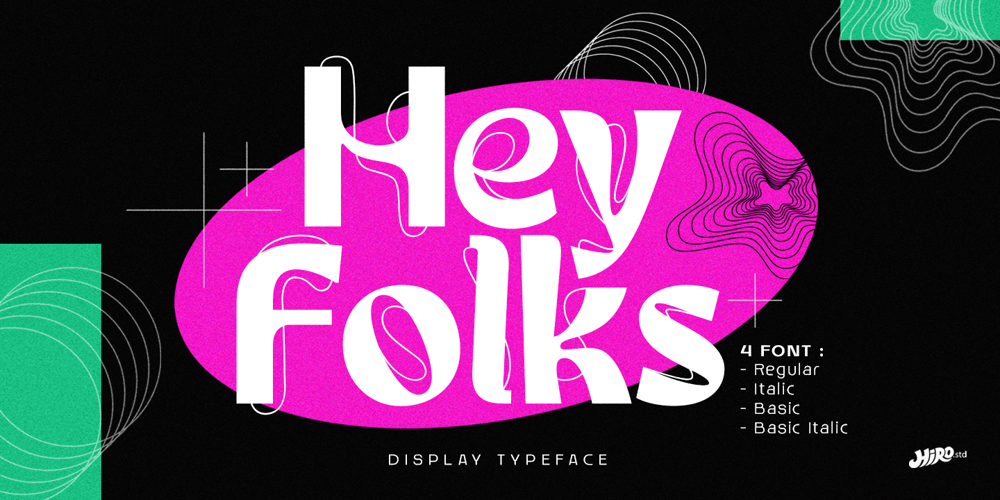
Hey Folks
Hey Folks font
Hey Folks Font Family was designed by Chairul Ashar and published by HIRO.std. Hey Folks contains 4 styles and family package options. Hey Folks is a Display Typeface This font describes about stylist, modern, DIY spirit, retro, vintage and easy to use. Hey Folks inspired by street culture, modern life, vintage and retro. FEATURES- Uppercase and Lowercase letters- Numbering and Punctuations- PUA Encoded Characters- Multilingual Support- Works on PC or Mac- Simple Installation USEHey Folks Display Typeface works great in T-shirt/ Apparel Design, DIY Project, Title, Poster and Magazine. Enjoy using!Thanks. HIRO.std